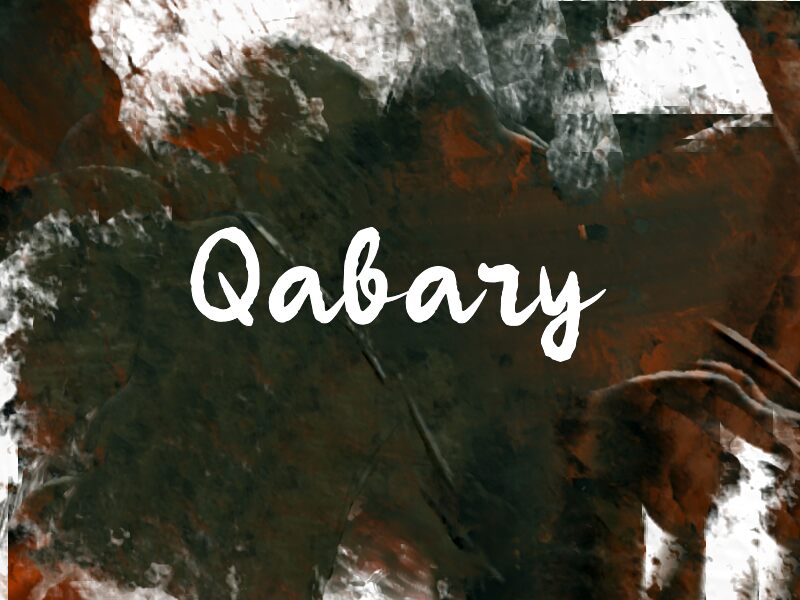
Qabary font is a unique design by wep with a brush style and a contemporary feel. Its strokes carry the imperfections familiar to brush styles. The elements of this free font are consistent in style to produce a seamless writing appearance. With the lack of perfect geometric shapes and symmetry, this typeface has a raw visual appeal that is perfect for specific uses.
Media and advertising industries can benefit from applying Qabary. However, the font is also fitting for more personal uses in beauty and cosmetics, wedding announcements, and greeting cards. Use it for home accessories, apparel, tote bags, and book covers for famous quotes or novels.
Qabary is an elegant and modern free font that is perfect for various design projects. Its clean lines and sophisticated style make it an excellent choice for creating logos, invitations, and any other visually appealing materials.